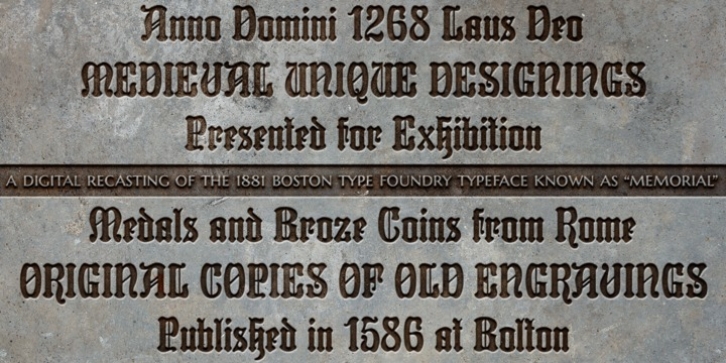
Historical elegance finds its place in the digital era with Reliquaire AOE.
Reliquaire AOE is the historical revival and elaboration of the “Memorial” typeface created by Boston Type Foundry in January of 1881.
What began as a basic character set of Capitals, lowercase, numerals, and a small handful of punctuation characters has been expanded to a full character set including unlimited fractionals, superiors & inferiors, ordinals, tabular & proportional figures, and an expanded language glyph set. History has found new life.